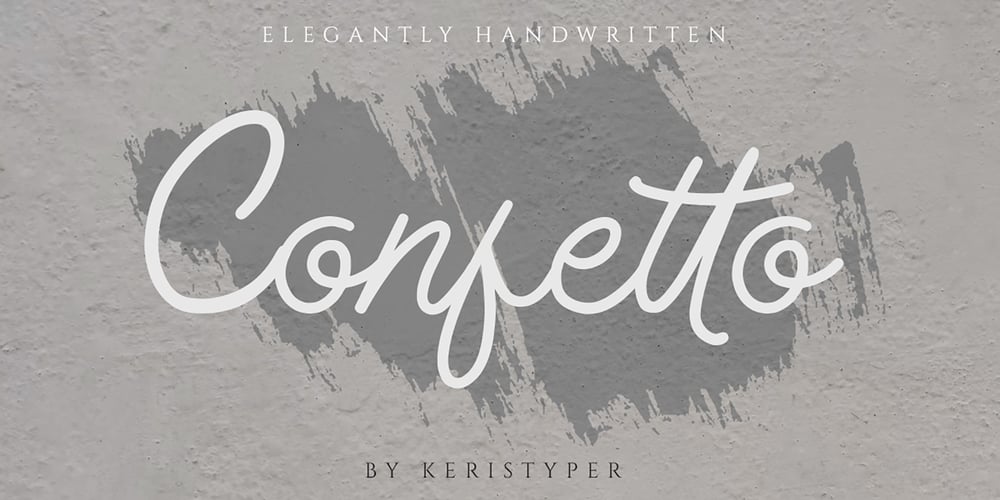
Confetto
Confetto font
Confetto Font Family was designed by Tezar Tantular and published by Keristyper Studio. Confetto contains 1 styles and family package options. Confetto is a high-quality monoline script font with strokes inspired by an adventurous vibe and vintage design. Plus it features OpenType with Stylistic Alternates, Ligatures, and Stylistic sets, which allows you to mix and match letter pairs to match your designs. This font is great for vintage designs, t-shirts, logos, labels, badges, posters, and more.Confetto font multilingual support: Afrikaans, Albanian, Catalan, Danish, Dutch, English, Estonian, French, Finnish, German, Icelandic, Indonesian, Italian, Malay, Norwegian, Portuguese, Spanish, Swedish, Zulu, and many more.What’s Included : Standard & Multilingual glyphs Ligature Works on PC & Mac Simple installations Accessible in Adobe Illustrator, Adobe Photoshop, Adobe InDesign, and even work on Microsoft Word. Hope you enjoy our font!